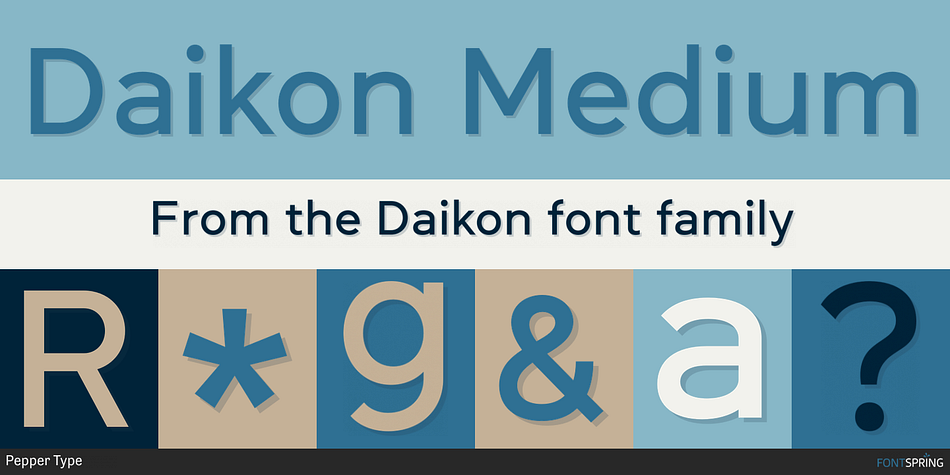
Daikon Medium
Daikon is a sans serif font family. This typeface has sixteen styles and was published by Pepper Type.
Daikon is a semi-closed geometric grotesque featuring rich language support including Cyrillic, various OpenType features and multiple sets of figures.
This family’s clean and legible feel makes it useable as both display and body type in any font size.